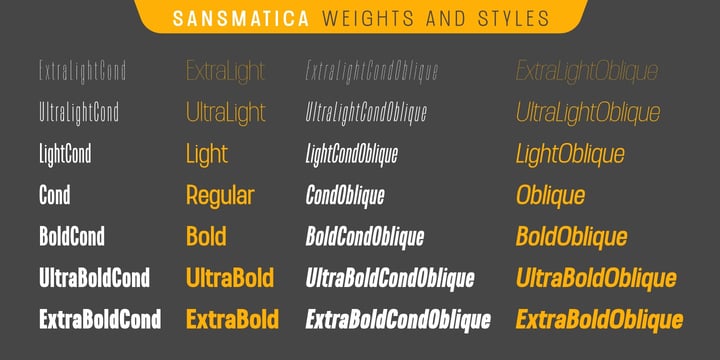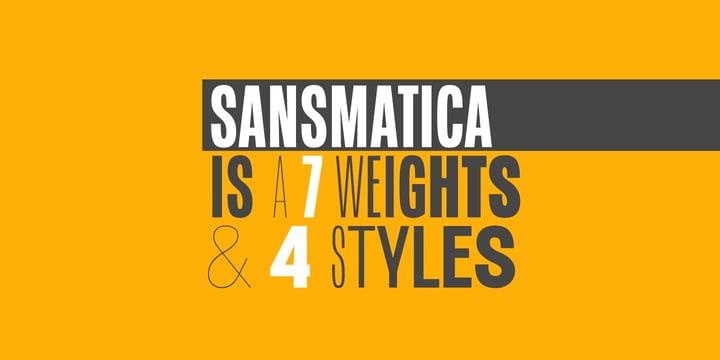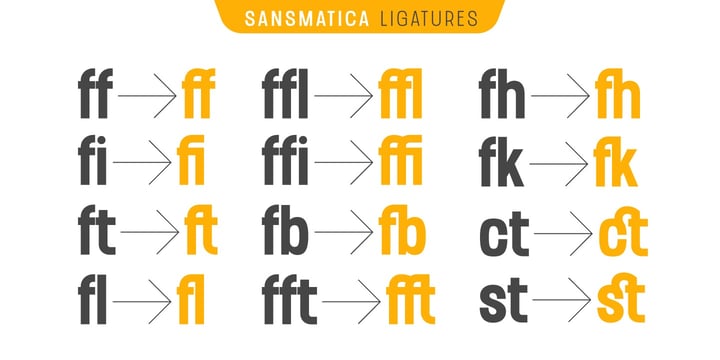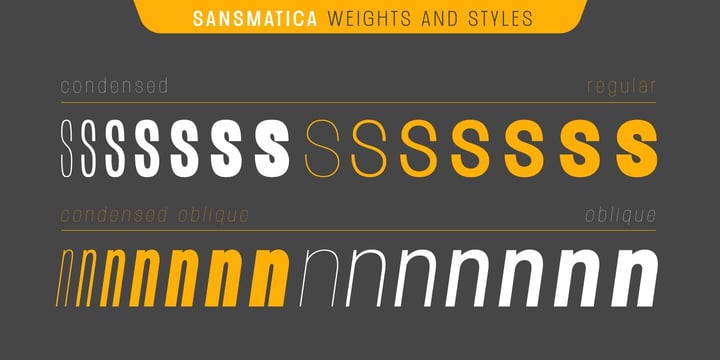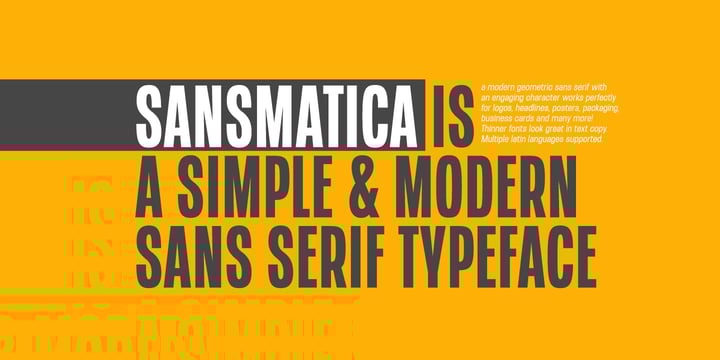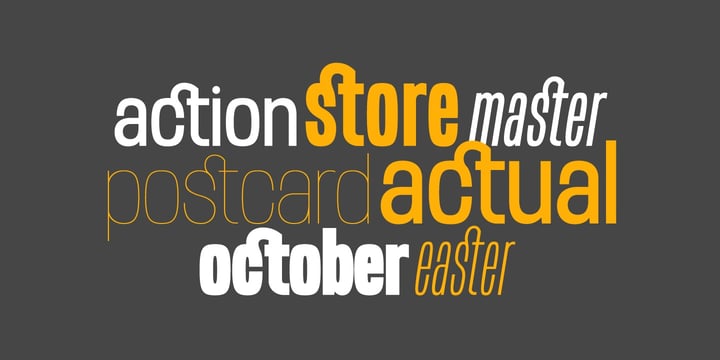
Modern Type Essentials
Modern Type Essentials is a curated collection of versatile sans-serif fonts designed to meet the demands of any contemporary project. From sleek headlines to legible body text, this bundle offers the perfect balance of form and function.
Each typeface in the collection brings its own personality — from geometric precision to humanist warmth — making it easy to find the right tone for your brand, editorial design, or digital interface.
Whether you’re working on logos, websites, packaging, or presentations, Modern Type Essentials gives you a reliable foundation for modern typography.
Included: a selection of clean, adaptable sans-serif fonts suitable for both print and screen use.
Perfect for:
– Branding and identity design
– Editorial and web layouts
– Advertising, packaging, and UI projects
– Designers who value clarity, versatility, and timeless style